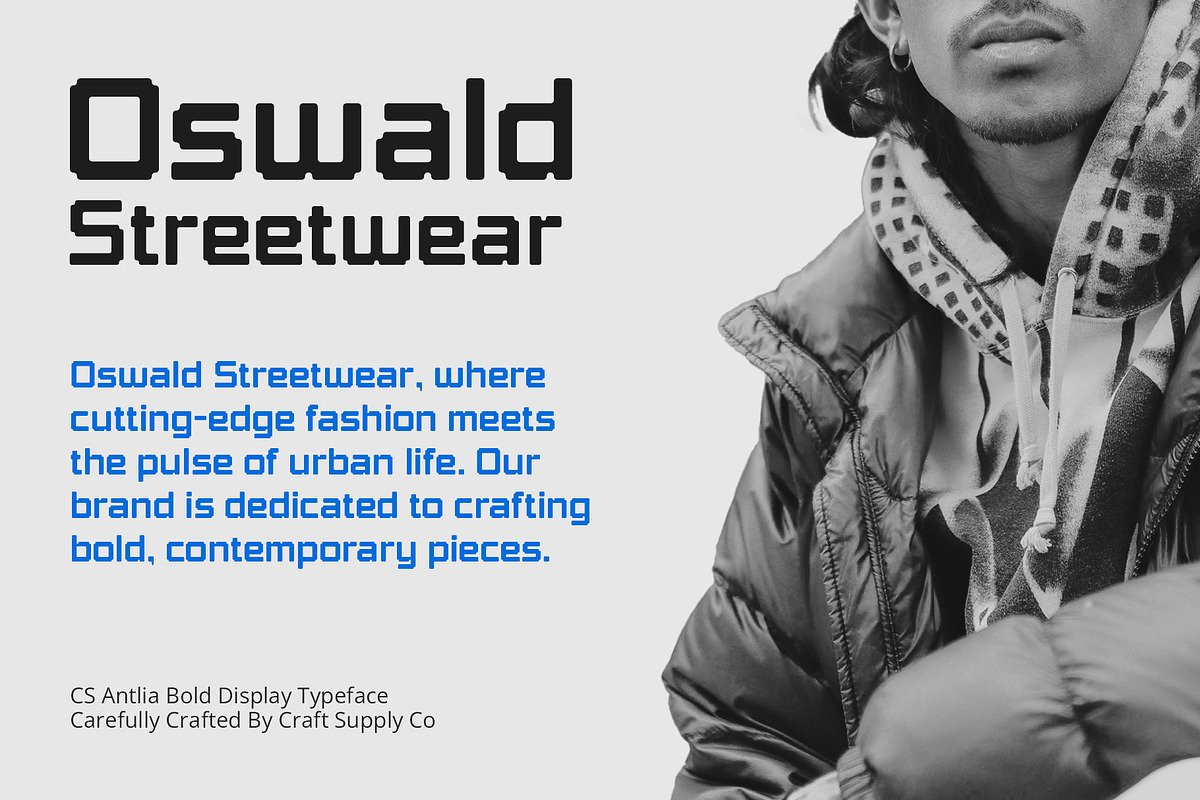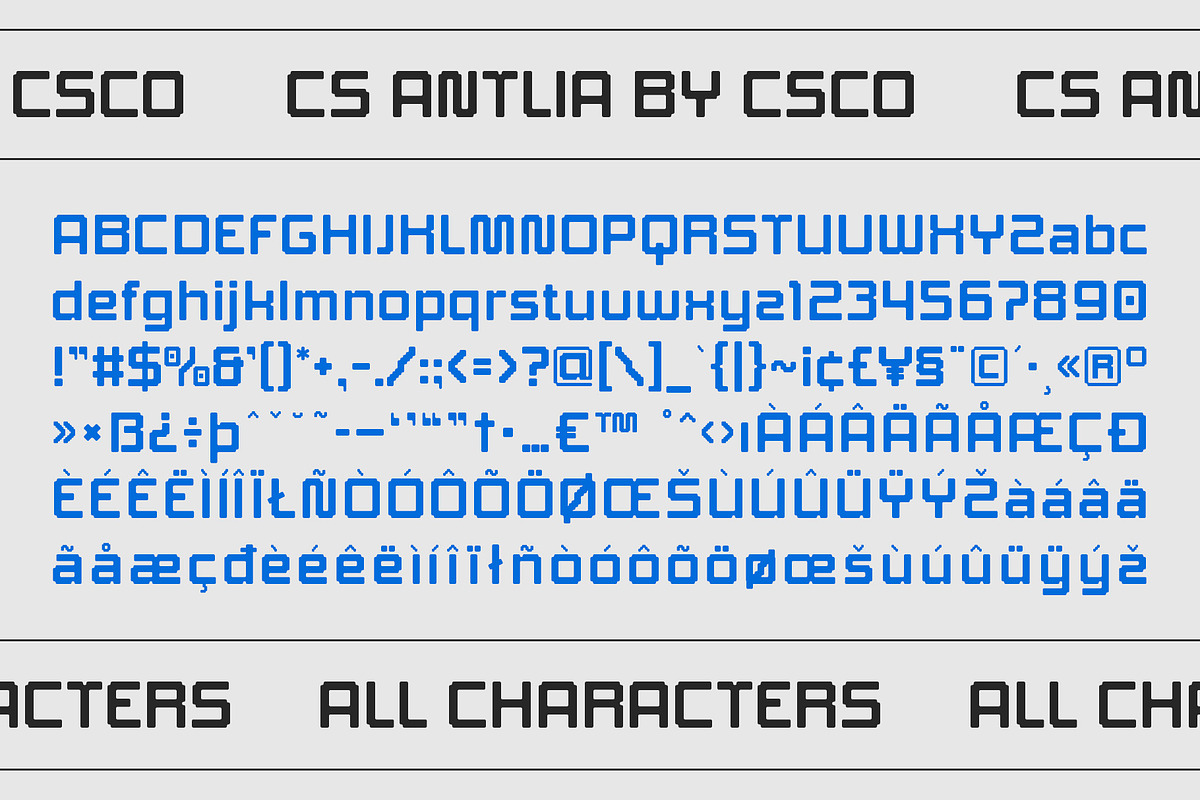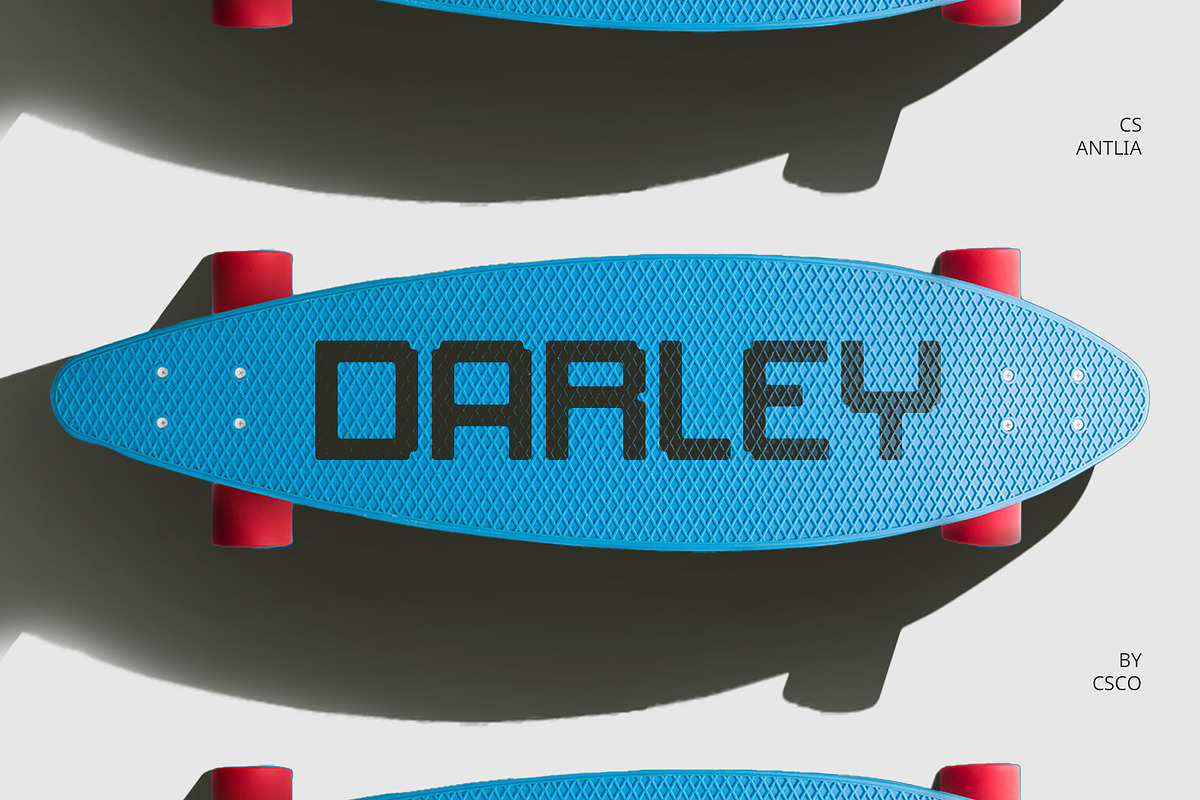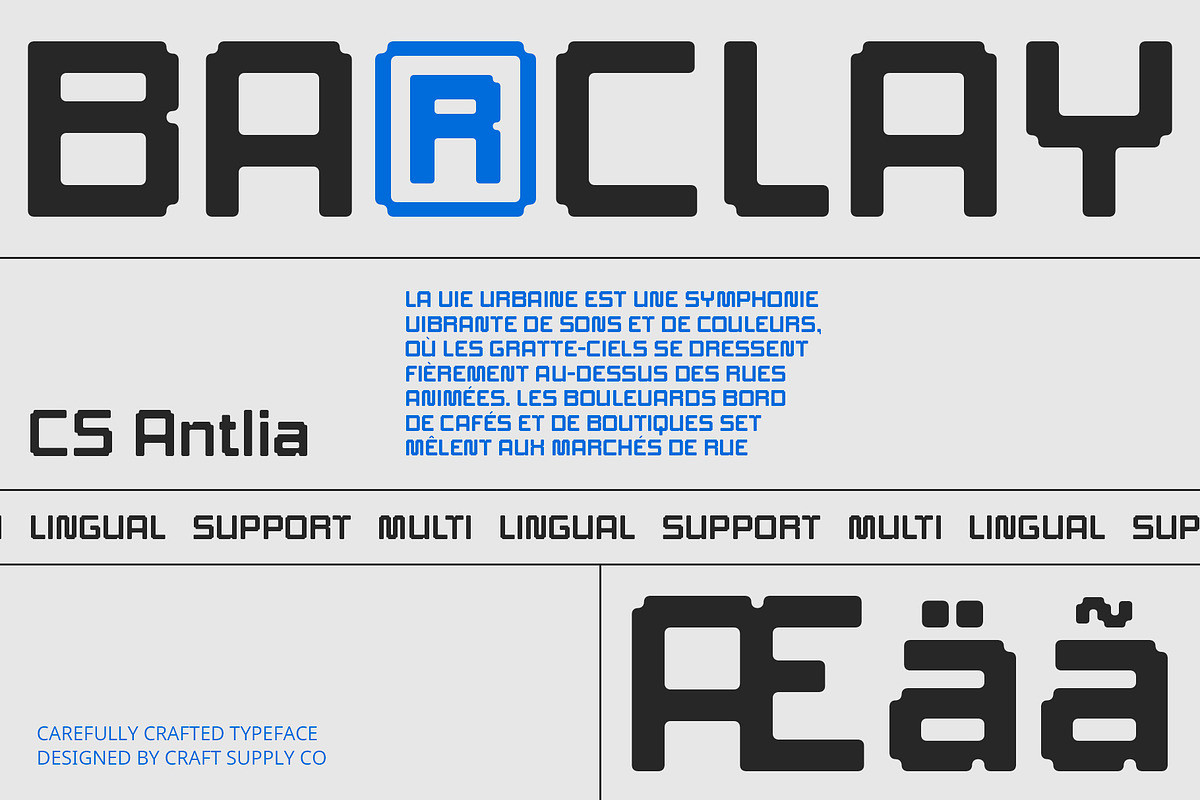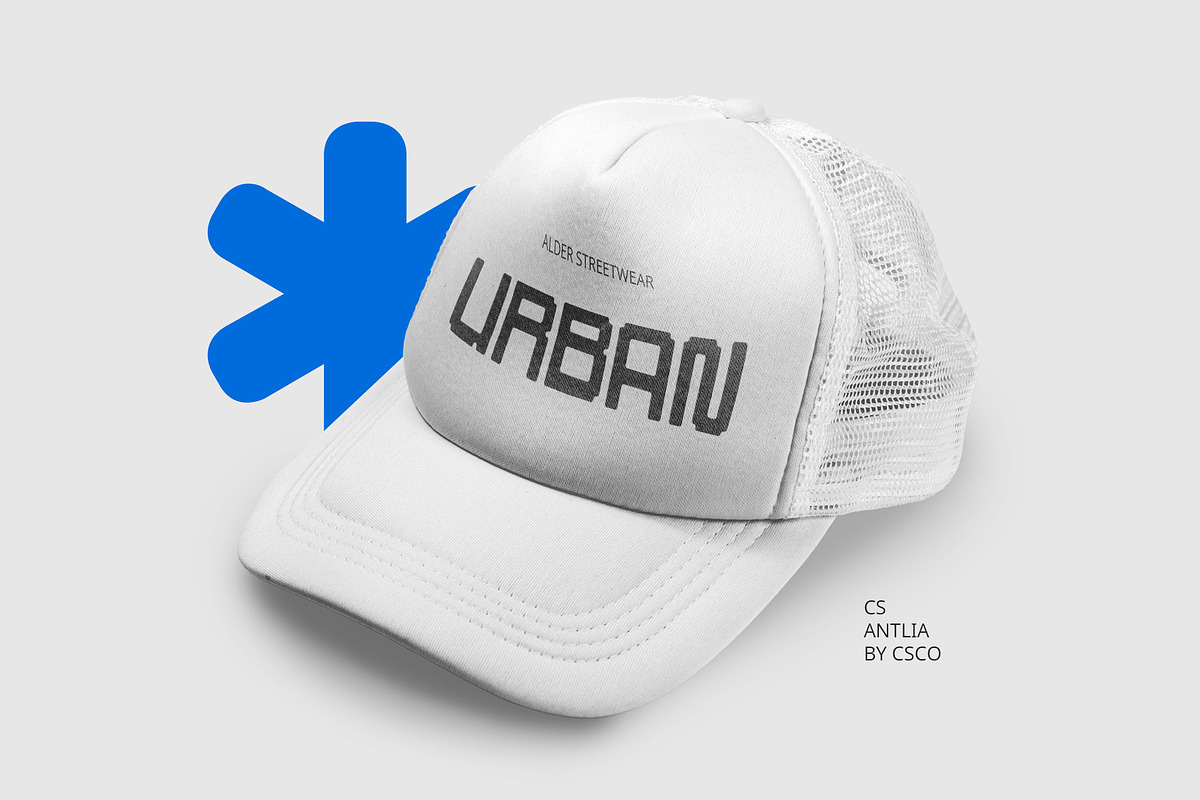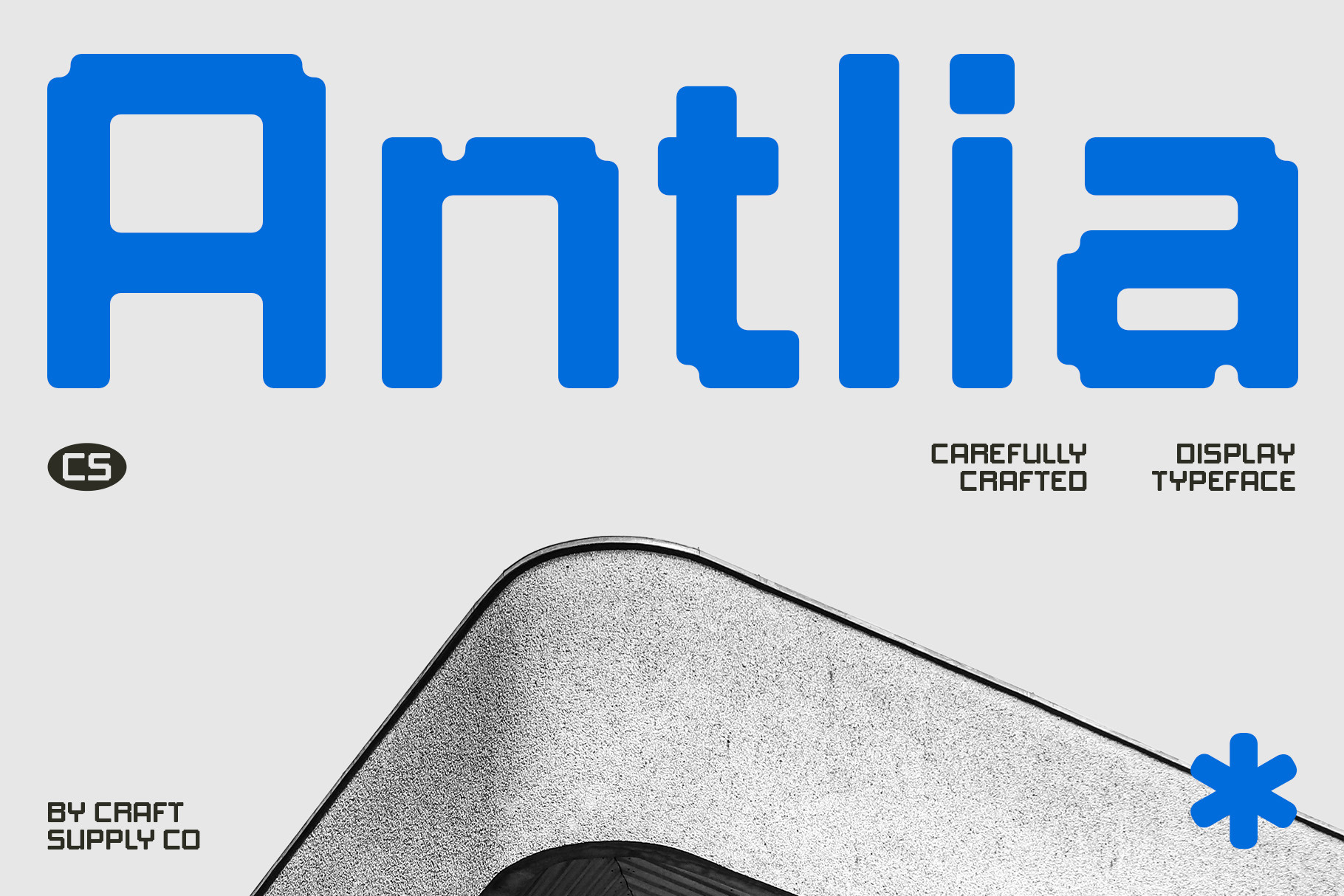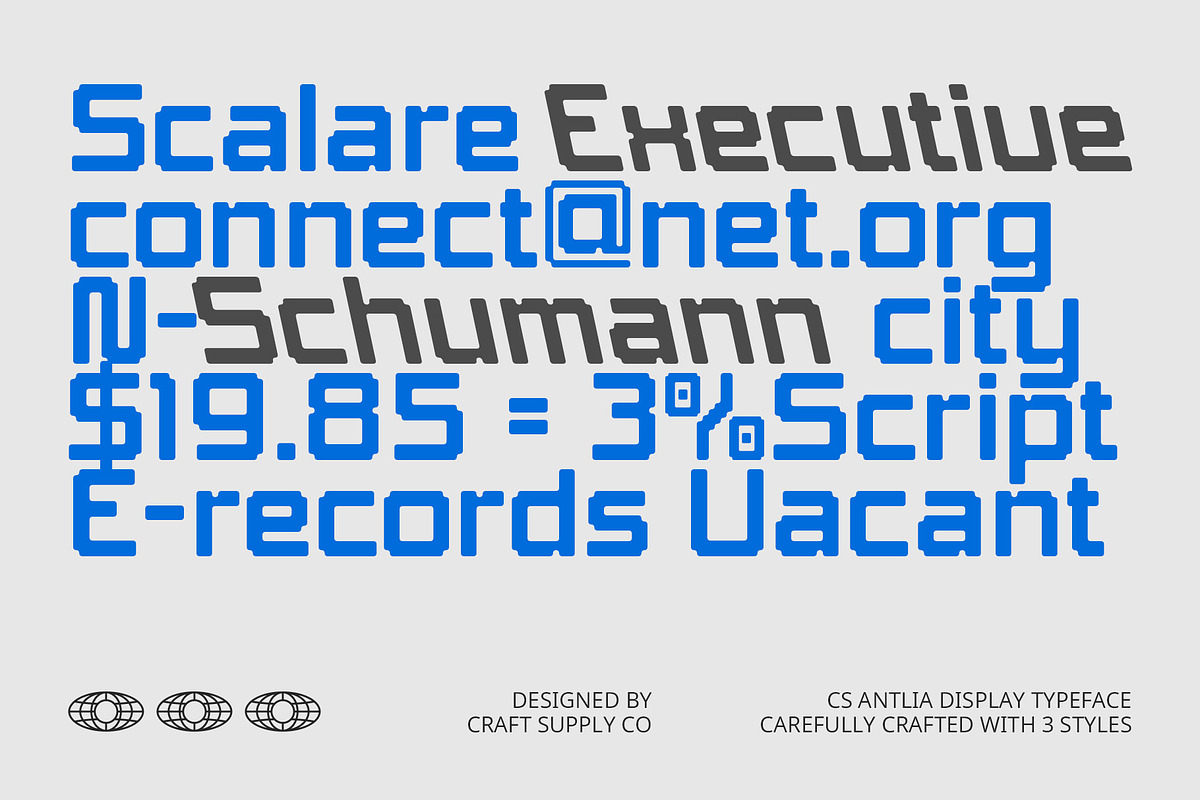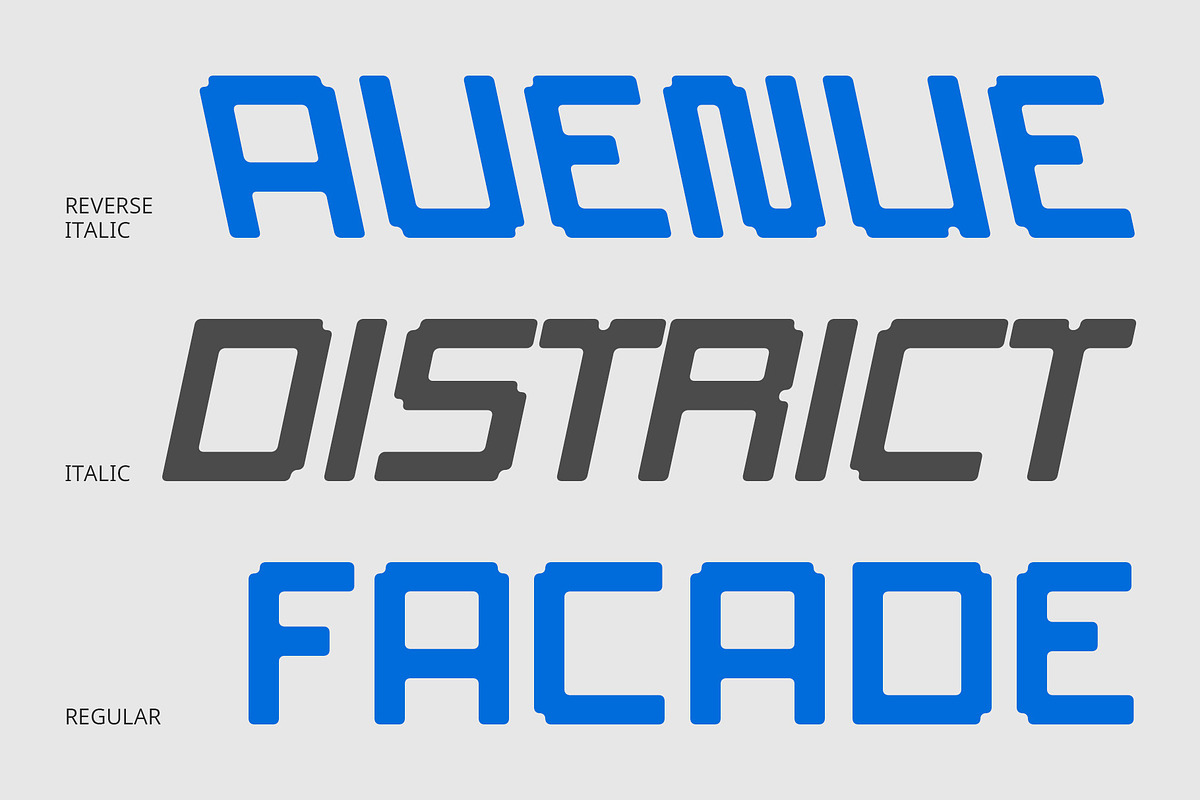
CS Antlia – Techno Font
CS Antlia Font: Techno Display Font
Innovative and Sophisticated Design CS Antlia is a modern display font that embodies a techno style with sharp lines and precise geometric shapes. Its design conveys a high-tech and futuristic impression, making it ideal for projects that need a clean, cutting-edge appearance.
High-Tech and Futuristic Impression With its innovative design, CS Antlia offers a sophisticated look that highlights advanced technology and efficiency. The font’s precise and sharp characteristics enhance its modern appeal, perfect for branding, digital promotional materials, and any design that aims to emphasize progress and innovation.
Flexible for Various Contexts CS Antlia’s versatile design allows for easy adaptation across different contexts, ensuring it fits seamlessly into a wide range of projects. Whether used for technology-focused branding or sleek digital layouts, this font provides a distinctive, contemporary edge that stands out.
Elevate Your Design with Advanced Technology For designs seeking to reflect a sense of technological advancement and modern efficiency, CS Antlia is the perfect choice. Its futuristic style and sophisticated lines create a dynamic visual impact, elevating any project with a touch of cutting-edge innovation.
- CS Antlia Regular
- CS Antlia Italic
- CS Antlia Reverse Italic